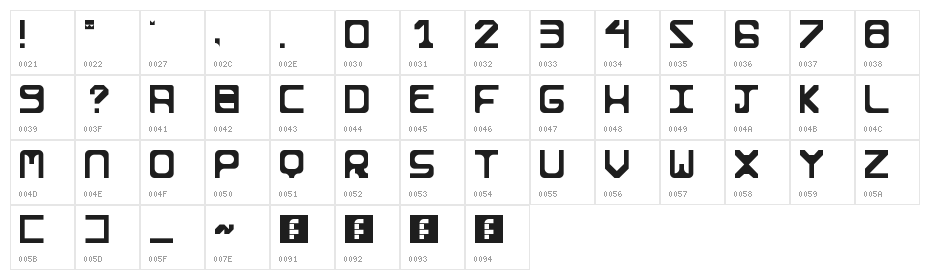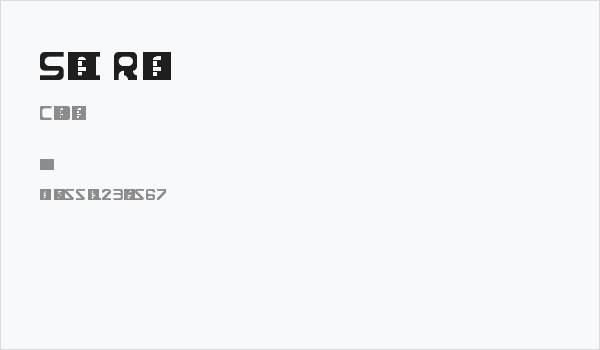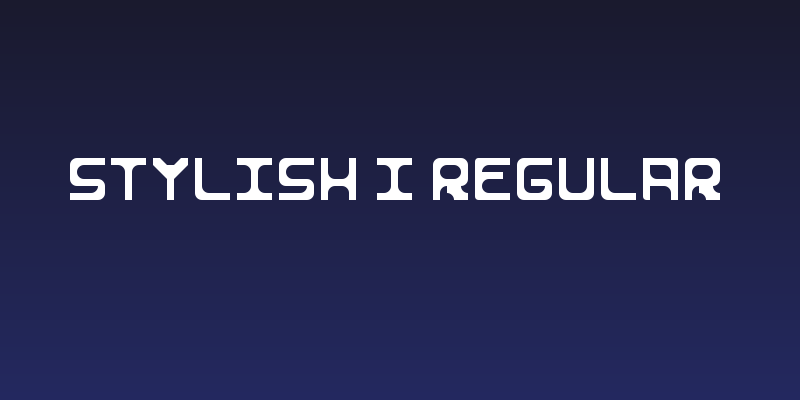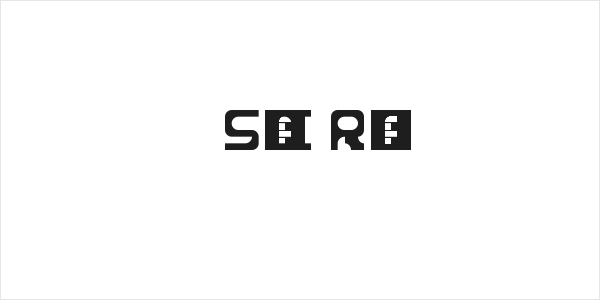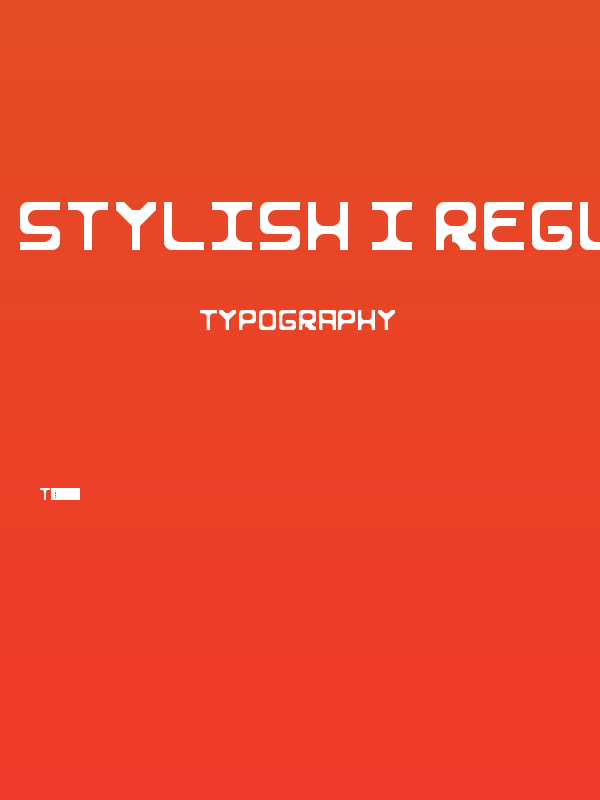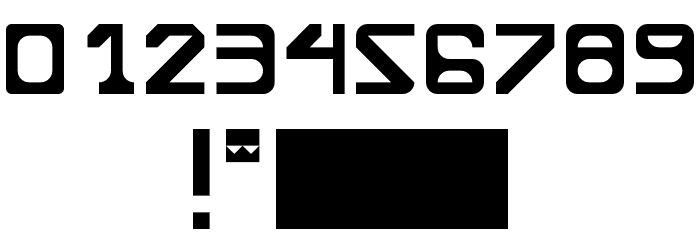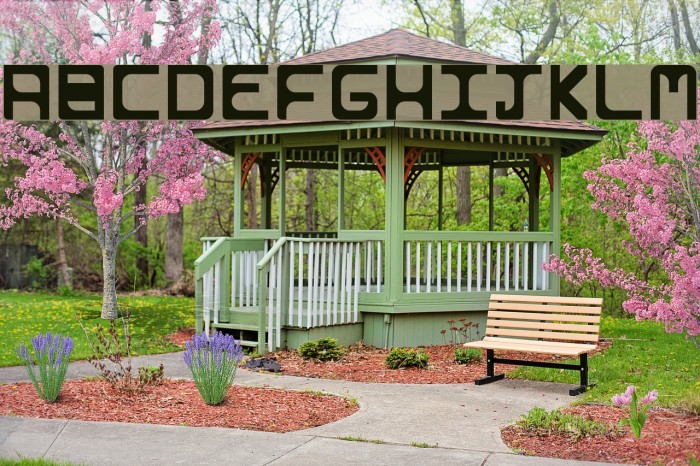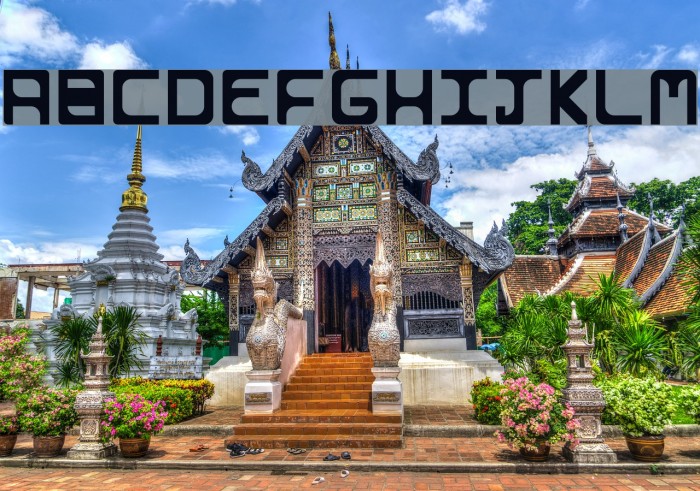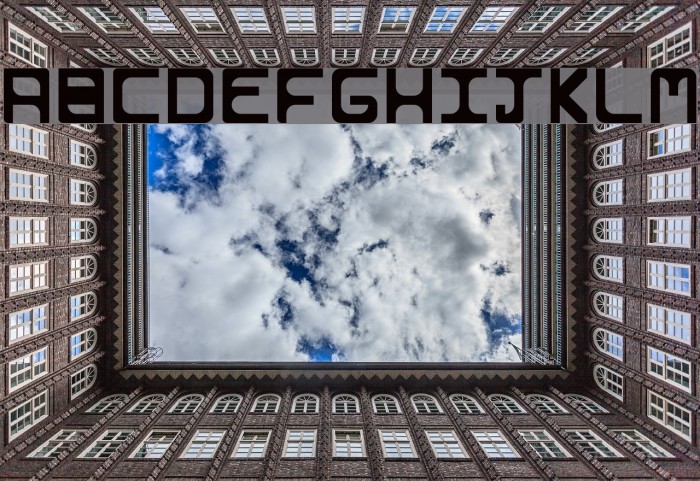
Stylish I Regular Font
Stylish I Regular Description
This font features a bold and geometric design with a futuristic touch. The characters are constructed with a consistent stroke width, giving it a uniform appearance. The angular and block-like shapes create a strong visual impact, making it ideal for attention-grabbing designs. The uppercase letters are particularly striking, with unique cutouts and angles that enhance its modern aesthetic. The numerals and special characters maintain the same bold style, ensuring consistency throughout the typeface.
| Proposed Projects | Ideal for technology branding, sci-fi themed projects, video game interfaces, and modern poster designs. |